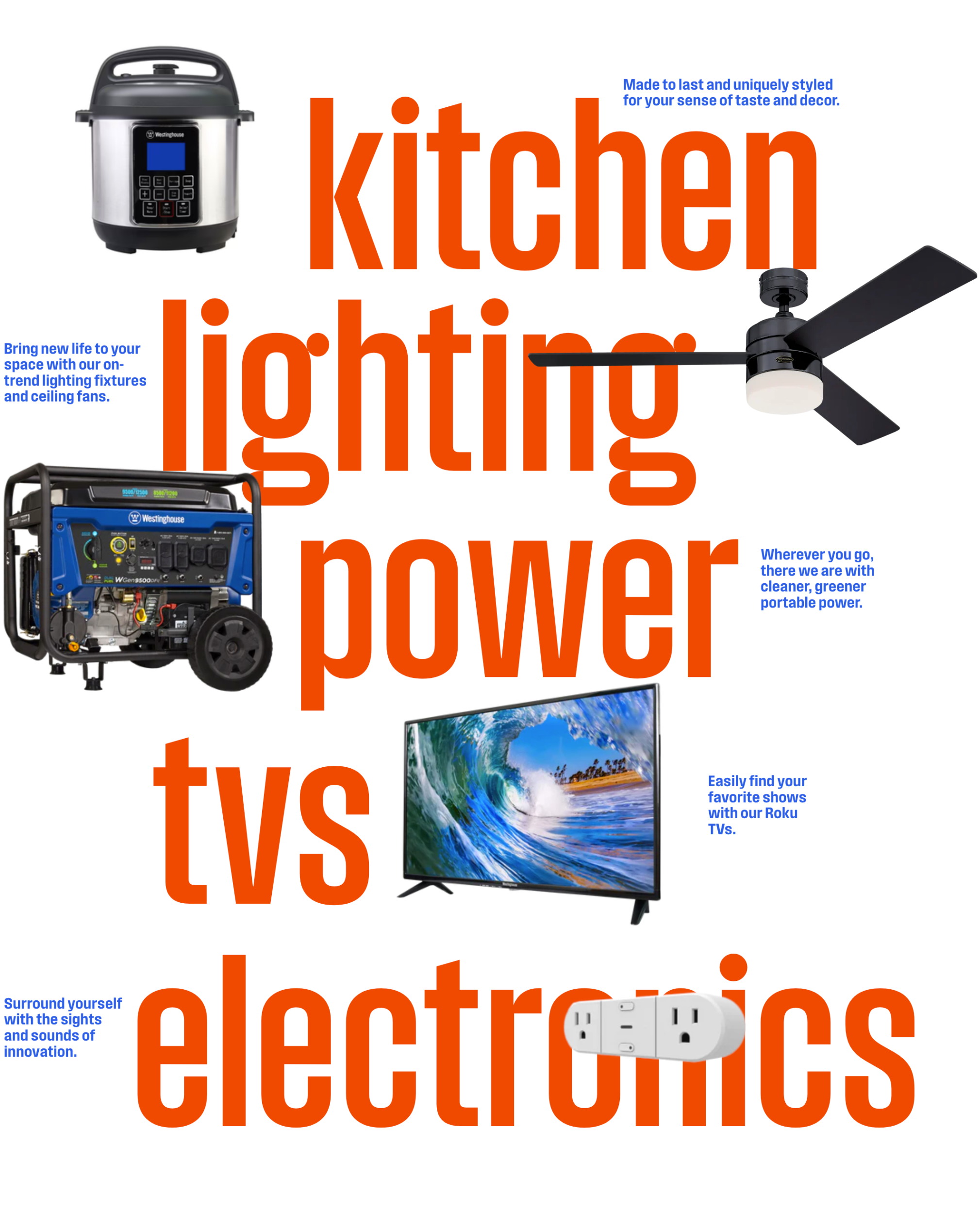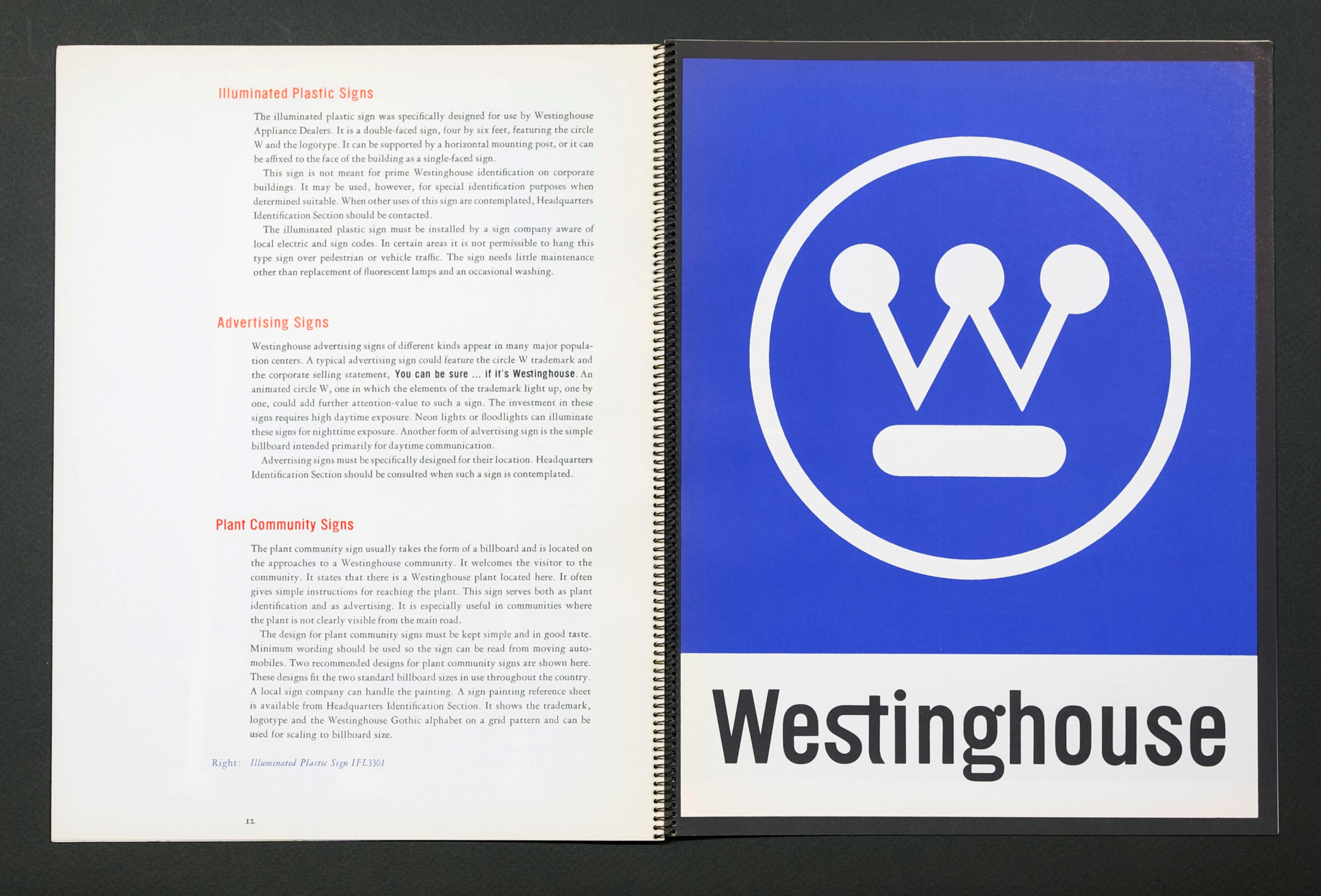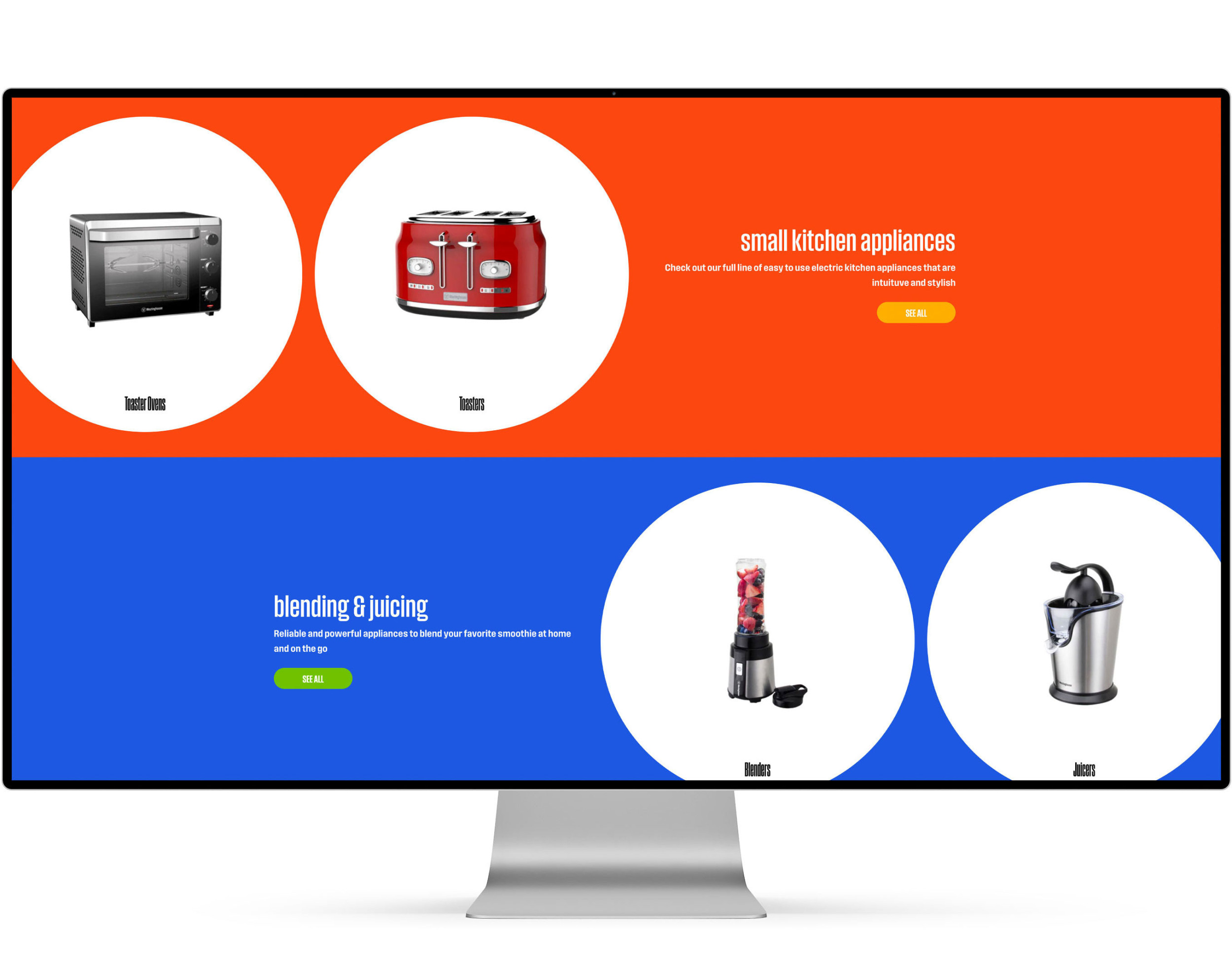
Westinghouse
Founded in 1862 by the father of alternating current (and Nikola Tesla’s boss), Westinghouse is a giant of American industry, and Paul Rand’s 1959 circuit-board W was a milestone in American graphic design. But after a century of aggressive licensing and repeated changes in ownership, the once-ubiquitous brand was in decline. The consumer products lacked differentiation, the corporate site linked through to a miscellany of uncoordinated sub-brand sites, and Westinghouse’s global presence had grown incoherent.
In 2021, a group of new owners turned to Paula Scher at Pentagram to restore the legendary brand’s clarity. She asked us to modify our Field Gothic to create a modern successor to Rand’s Westinghouse Gothic. Three of Field’s 64 styles were selected for customization; we tested the beta versions by recreating some of Rand’s classic designs. Another three were used without modification to round out the type palette—Field’s first public use. The new Westinghouse Sans has become a central element of a refreshed and refocused design system. Branding and website by Pentagram.